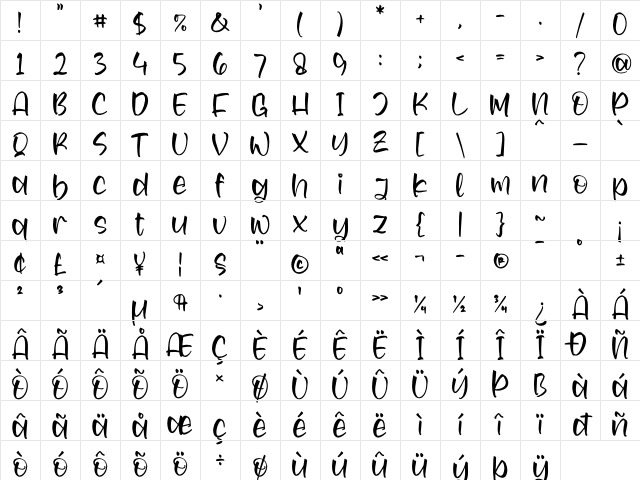
Kacang Disko Regular
Foundry: Perspectype Studio
Designer: Perspectype Studio
Design Context for Kacang Disko
Kacang Disko is a composed and adaptable typeface that performs quietly and consistently across a wide range of design contexts.
Pro Tip: Use Kacang Disko in both headline and body roles to test its range before committing to a single application.